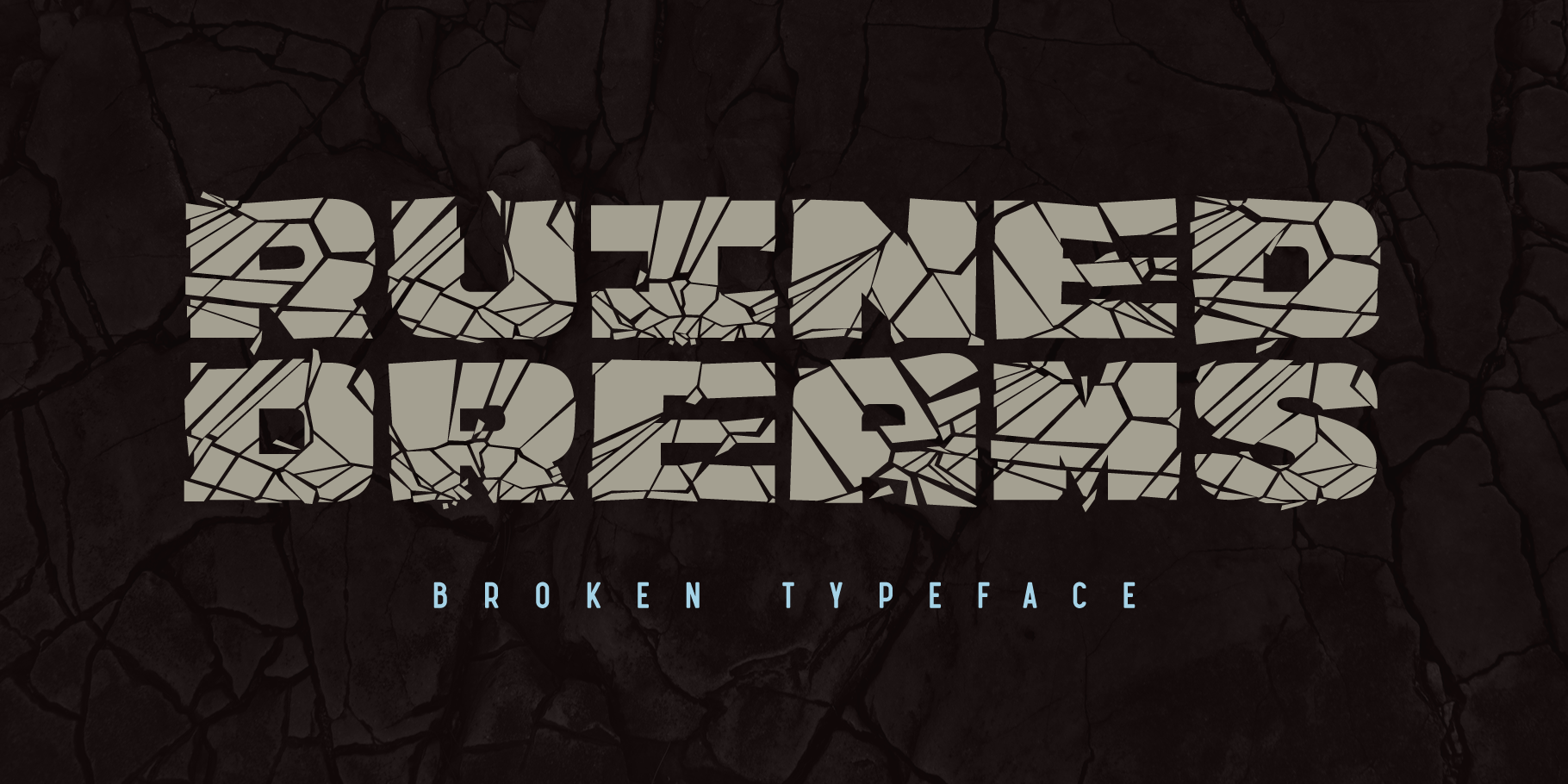
The Ruined Dreams Font is an excellent choice for designs that aim for a dark, dramatic, and often distressed or horror-inspired aesthetic. Imagine it creeping across the cover of a chilling psychological thriller novel, adding a sinister touch to a gothic-themed video game title, or bringing a haunting atmosphere to a horror movie poster. It's also perfectly suited for Halloween party invitations, dark fantasy art, heavy metal album covers, and any project where you want to convey a sense of decay, despair, or a nightmarish quality. Its often fragmented, distorted, or sharp-edged forms make it ideal for conveying dread and an unsettling presence.
What makes the Ruined Dreams Font so exciting is its ability to instantly infuse a design with a feeling of foreboding and a sense of something broken or lost. It frequently features irregular outlines, sharp points, or a crumbling texture that evokes the aftermath of a catastrophe or a descent into darkness. This font has a powerful and disturbing personality that can instantly elevate your design, making it feel both intense and artistically grim. It’s designed to capture attention with its unsettling beauty, ensuring your message is not just seen, but felt with a profound sense of unease.
The Ruined Dreams Font family typically might focus on a few impactful weights to best convey its strong character, possibly including stylistic alternates or unique ligatures that enhance its distressed or horror-themed appeal. While it might not always have an extensive range of weights, its strength lies in its distinctive visual style and inherent expressiveness. These variations empower designers to create a truly unsettling and memorable display, ensuring the Ruined Dreams Font Free Download can adapt to a wide array of projects while maintaining its signature, haunting charm.